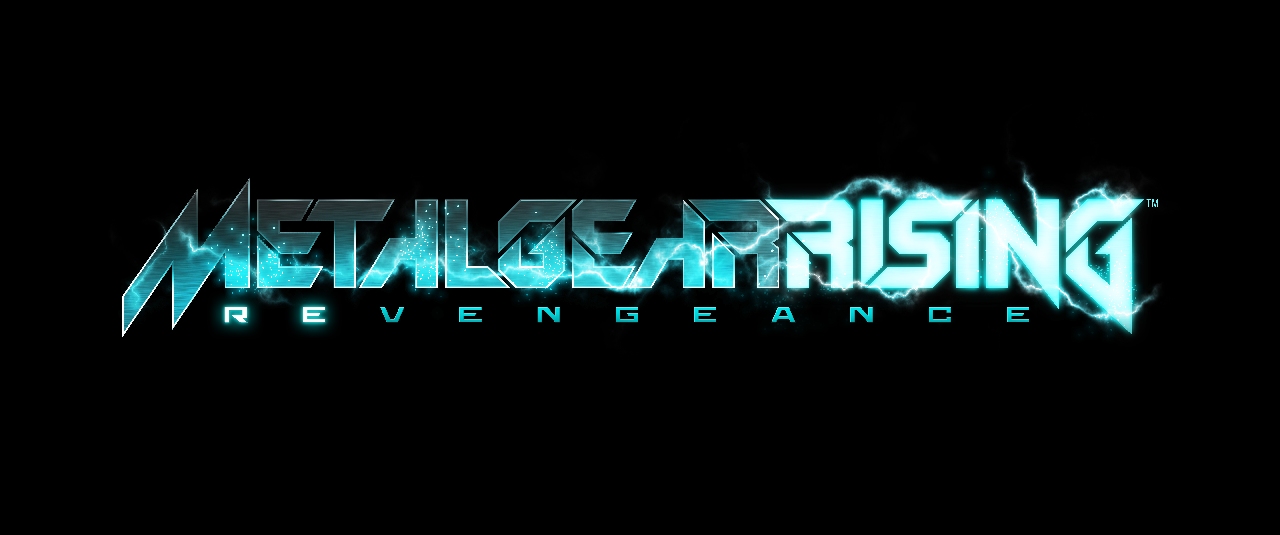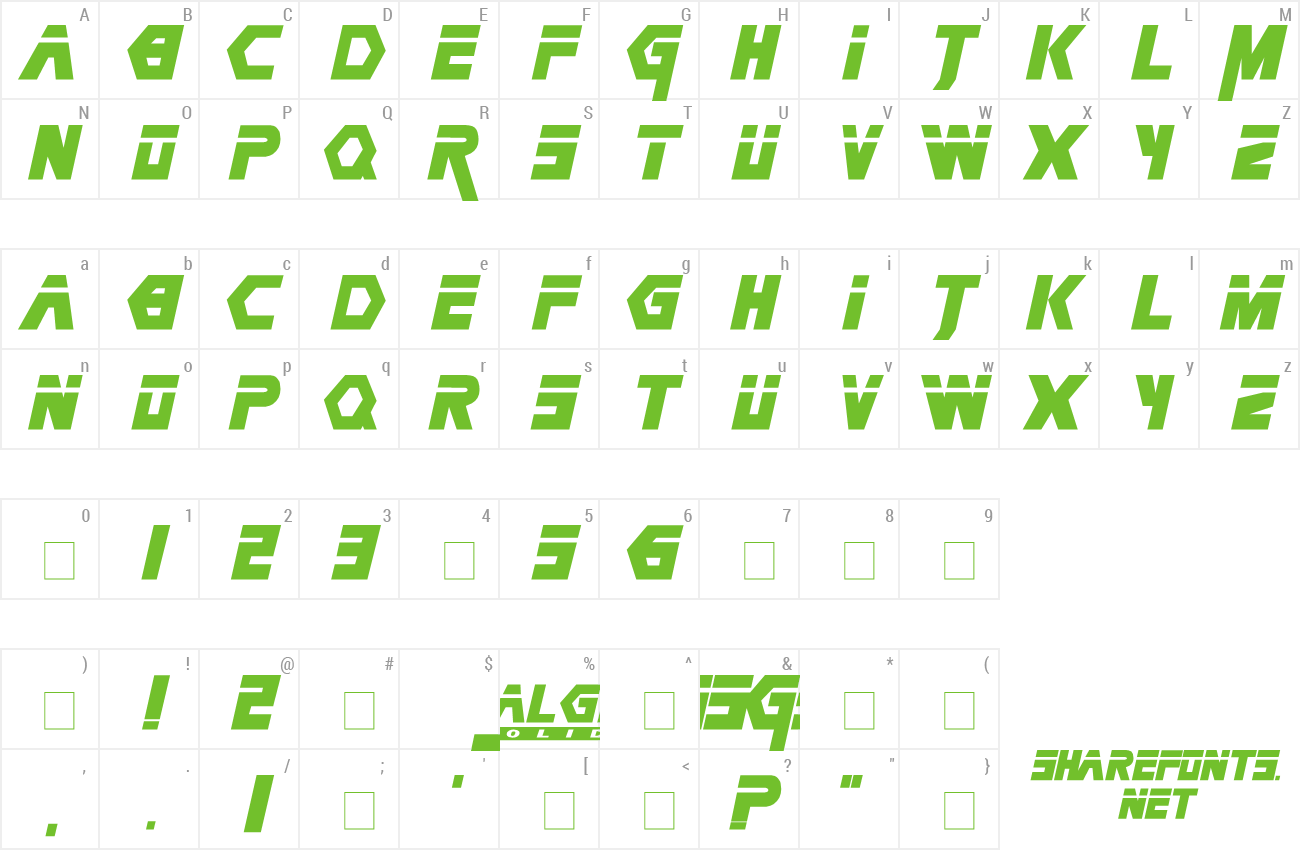
Metal Gear Rising Font
Metal Gear Rising Font - It's modified font maybe mixed slant font. Look at 'i' and 'g'. Web may 01, 2014 at 22:23. Web font based on certain hud elements from the game metal gear rising, namely score numbers and nametags for codec calls. Font based on certain hud elements from the game metal gear rising, namely score numbers and nametags for.
Web font based on certain hud elements from the game metal gear rising, namely score numbers and nametags for codec calls. Web may 01, 2014 at 22:23. Look at 'i' and 'g'. Font based on certain hud elements from the game metal gear rising, namely score numbers and nametags for. It's modified font maybe mixed slant font.
It's modified font maybe mixed slant font. Web may 01, 2014 at 22:23. Font based on certain hud elements from the game metal gear rising, namely score numbers and nametags for. Look at 'i' and 'g'. Web font based on certain hud elements from the game metal gear rising, namely score numbers and nametags for codec calls.
Web font based on certain hud elements from the game metal gear rising, namely score numbers and nametags for codec calls. Font based on certain hud elements from the game metal gear rising, namely score numbers and nametags for. Web may 01, 2014 at 22:23. Look at 'i' and 'g'. It's modified font maybe mixed slant font.
The HUD font from Metal Gear Rising Revengeance identifythisfont
Look at 'i' and 'g'. Web may 01, 2014 at 22:23. Web font based on certain hud elements from the game metal gear rising, namely score numbers and nametags for codec calls. It's modified font maybe mixed slant font. Font based on certain hud elements from the game metal gear rising, namely score numbers and nametags for.
Web may 01, 2014 at 22:23. Font based on certain hud elements from the game metal gear rising, namely score numbers and nametags for. Web font based on certain hud elements from the game metal gear rising, namely score numbers and nametags for codec calls. It's modified font maybe mixed slant font. Look at 'i' and 'g'.
Web font based on certain hud elements from the game metal gear rising, namely score numbers and nametags for codec calls. Web may 01, 2014 at 22:23. Font based on certain hud elements from the game metal gear rising, namely score numbers and nametags for. It's modified font maybe mixed slant font. Look at 'i' and 'g'.
Web may 01, 2014 at 22:23. Font based on certain hud elements from the game metal gear rising, namely score numbers and nametags for. It's modified font maybe mixed slant font. Look at 'i' and 'g'. Web font based on certain hud elements from the game metal gear rising, namely score numbers and nametags for codec calls.
Font based on certain hud elements from the game metal gear rising, namely score numbers and nametags for. It's modified font maybe mixed slant font. Look at 'i' and 'g'. Web font based on certain hud elements from the game metal gear rising, namely score numbers and nametags for codec calls. Web may 01, 2014 at 22:23.
Font based on certain hud elements from the game metal gear rising, namely score numbers and nametags for. Web font based on certain hud elements from the game metal gear rising, namely score numbers and nametags for codec calls. Web may 01, 2014 at 22:23. Look at 'i' and 'g'. It's modified font maybe mixed slant font.
Metal Gear Rising Font Free Color Fonts for iphone
Font based on certain hud elements from the game metal gear rising, namely score numbers and nametags for. Web may 01, 2014 at 22:23. Look at 'i' and 'g'. Web font based on certain hud elements from the game metal gear rising, namely score numbers and nametags for codec calls. It's modified font maybe mixed slant font.
Metal Gear Rising Font Free Color Fonts for iphone
Web may 01, 2014 at 22:23. It's modified font maybe mixed slant font. Web font based on certain hud elements from the game metal gear rising, namely score numbers and nametags for codec calls. Font based on certain hud elements from the game metal gear rising, namely score numbers and nametags for. Look at 'i' and 'g'.
Metal Gear Rising Title Font? forum
Font based on certain hud elements from the game metal gear rising, namely score numbers and nametags for. Look at 'i' and 'g'. It's modified font maybe mixed slant font. Web font based on certain hud elements from the game metal gear rising, namely score numbers and nametags for codec calls. Web may 01, 2014 at 22:23.
It's Modified Font Maybe Mixed Slant Font.
Web may 01, 2014 at 22:23. Look at 'i' and 'g'. Web font based on certain hud elements from the game metal gear rising, namely score numbers and nametags for codec calls. Font based on certain hud elements from the game metal gear rising, namely score numbers and nametags for.